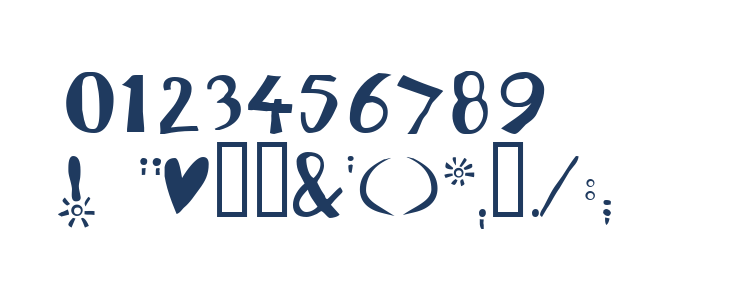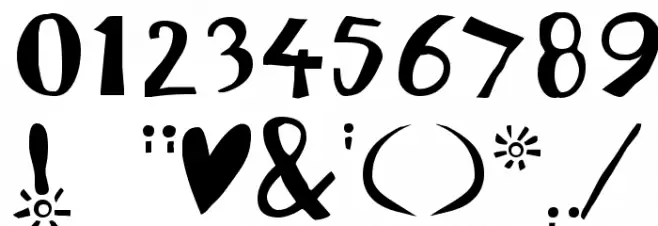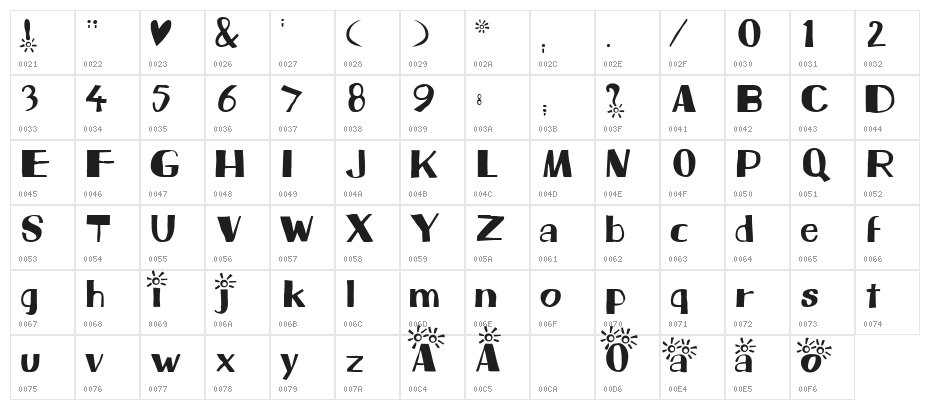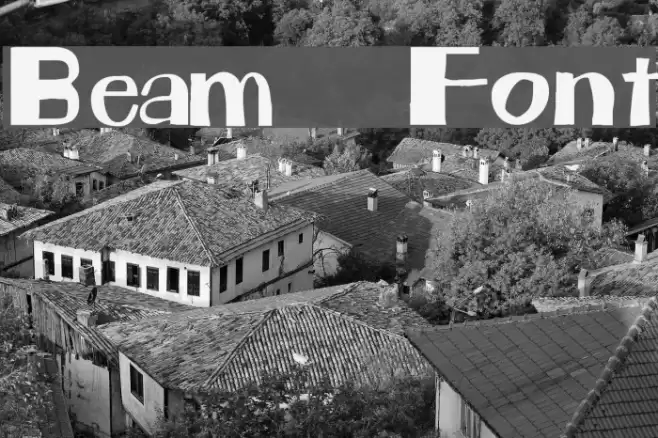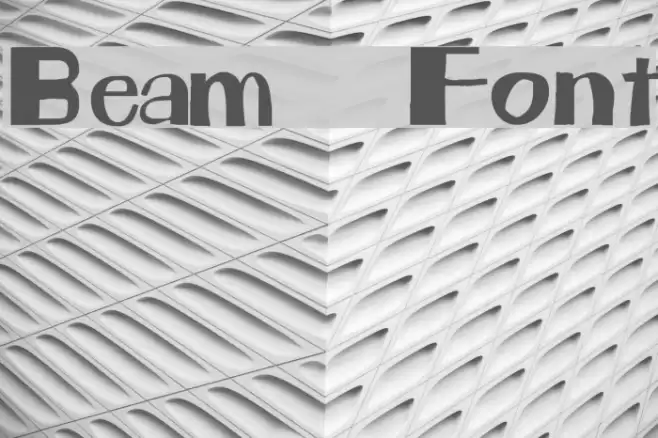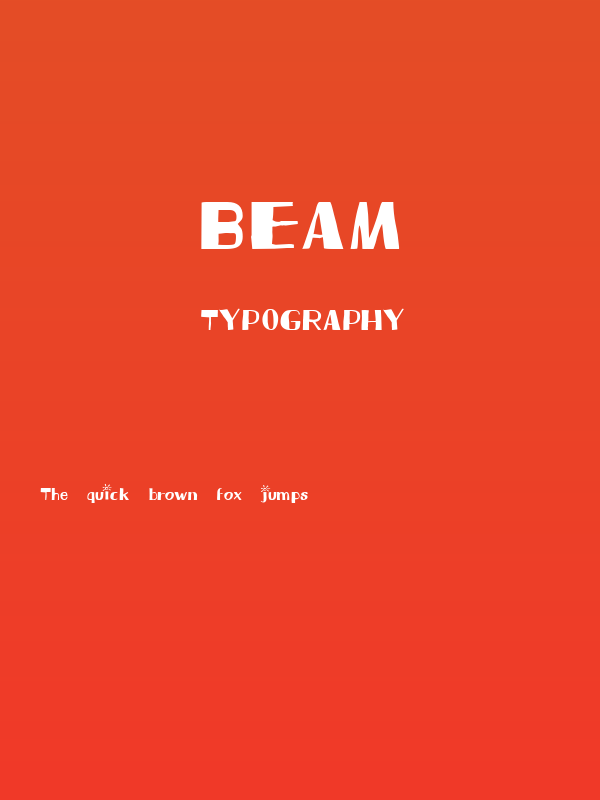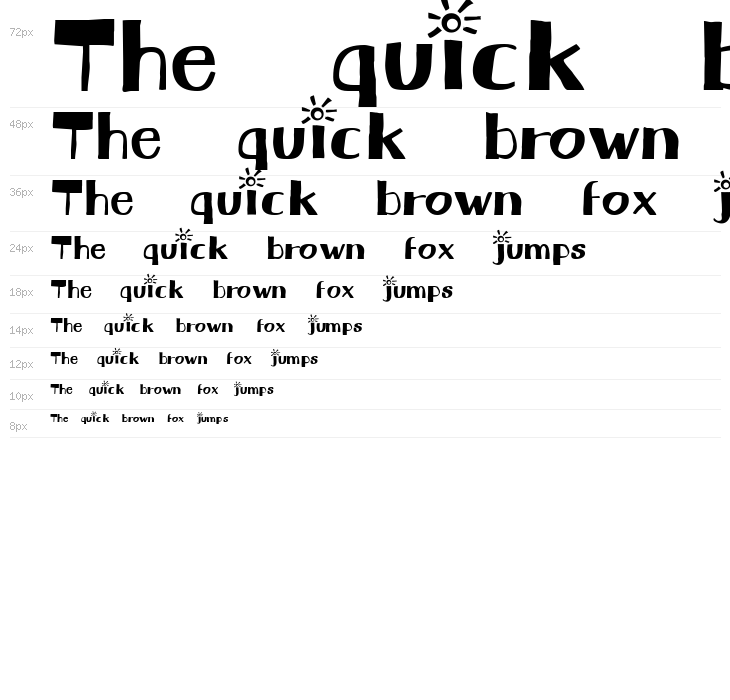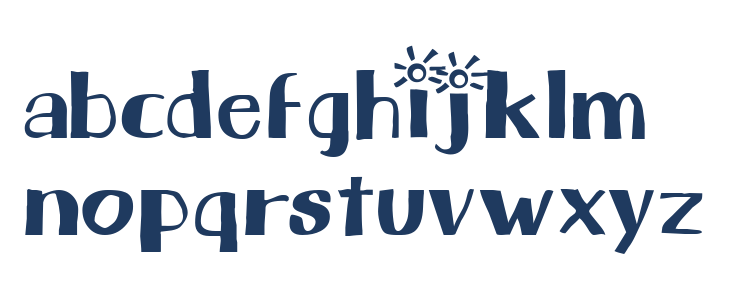
Beam Font
Beam Description
This font features a playful and bold design with a unique, artistic flair. The uppercase letters are characterized by their thick, uneven strokes and slightly irregular shapes, giving them a hand-crafted appearance. The lowercase letters maintain this whimsical style, with some characters featuring unexpected curves and angles that add to the font's charm. The numbers are equally bold and stylized, ensuring they stand out in any design. Special characters are creatively designed, incorporating playful elements that enhance the font's overall aesthetic. This font is perfect for projects that require a fun and eye-catching typeface.
| Proposed Projects | Ideal for children's books, playful branding, posters, and creative invitations. |